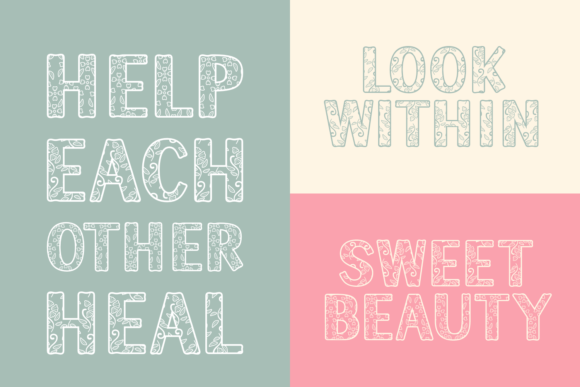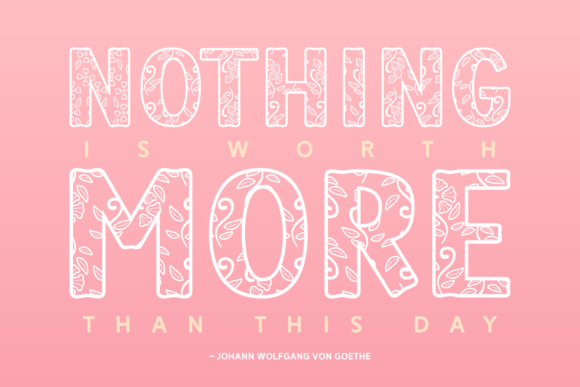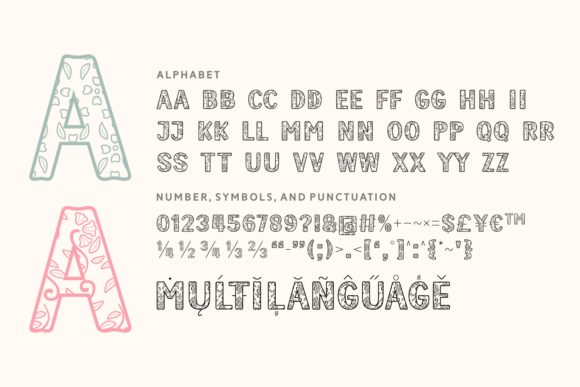
Introduction to Malya Font
Malya is a fresh and dainty decorative font featuring unique characters that make any product irresistible.
Use it on your most creative product packaging, apparel designs, storybooks, covers, weddings designs, and branding projects .